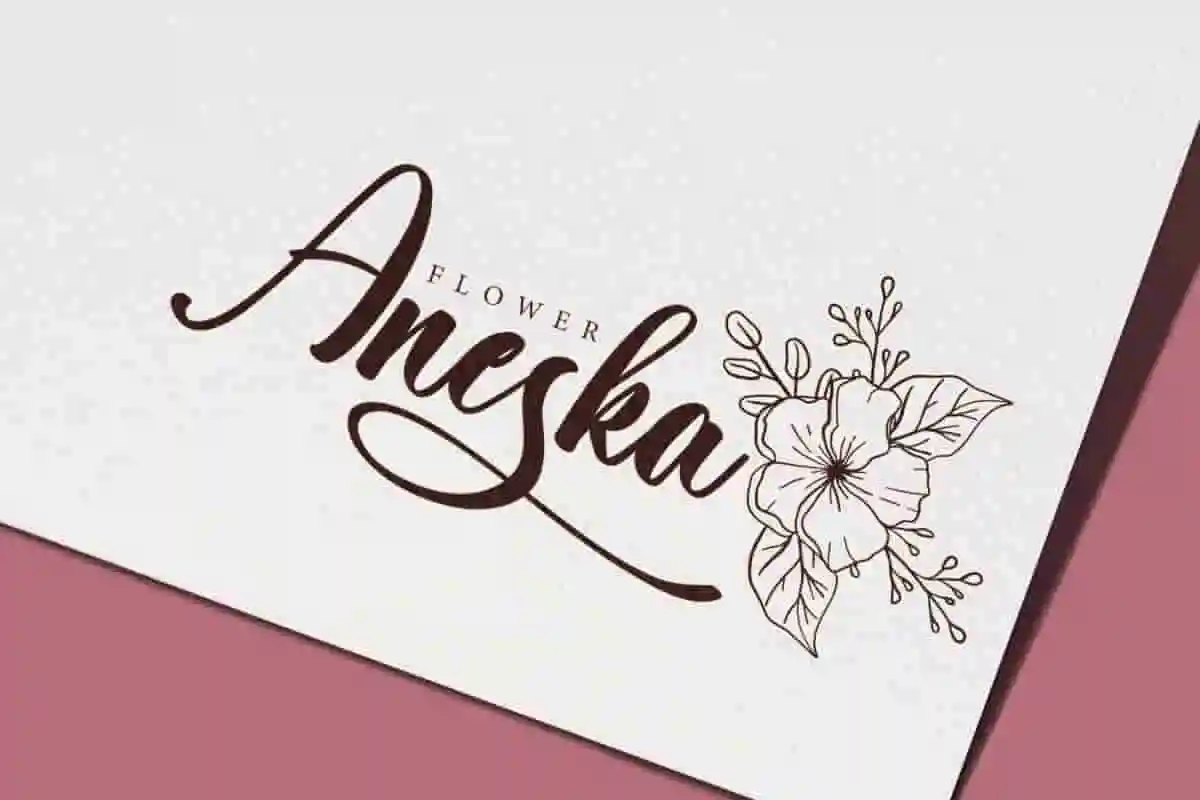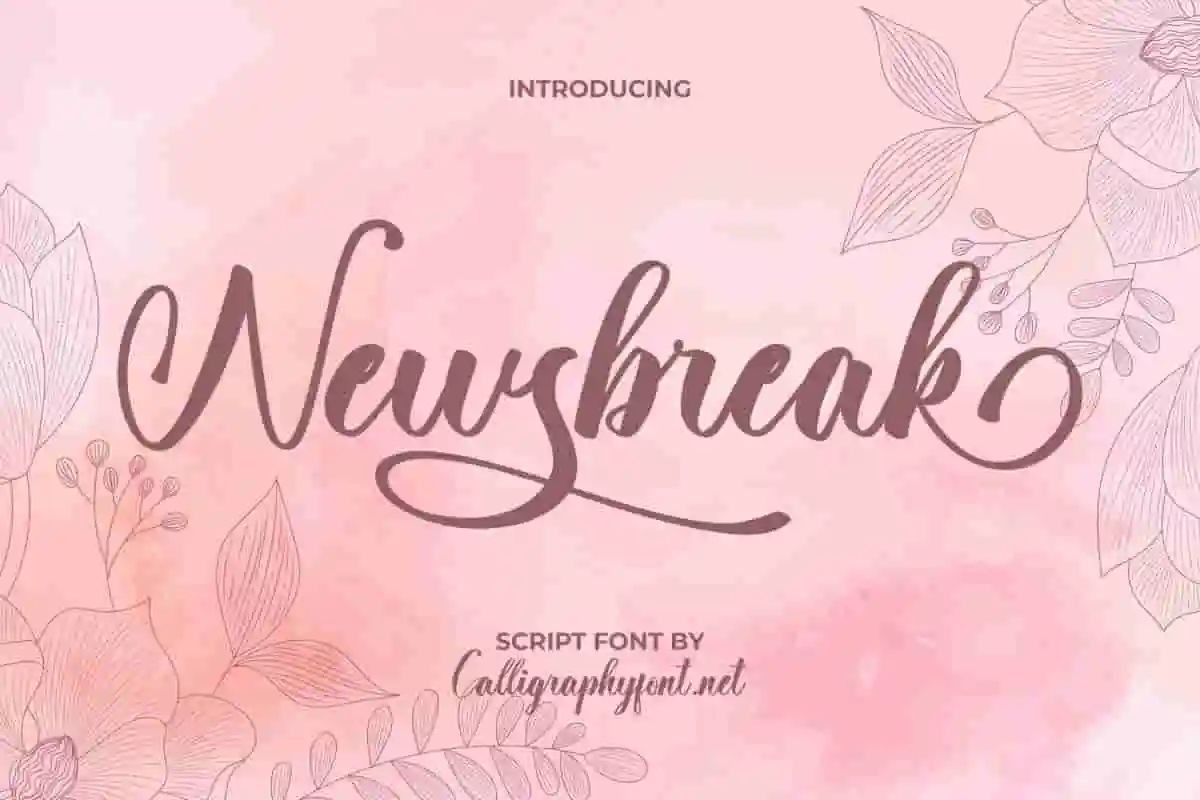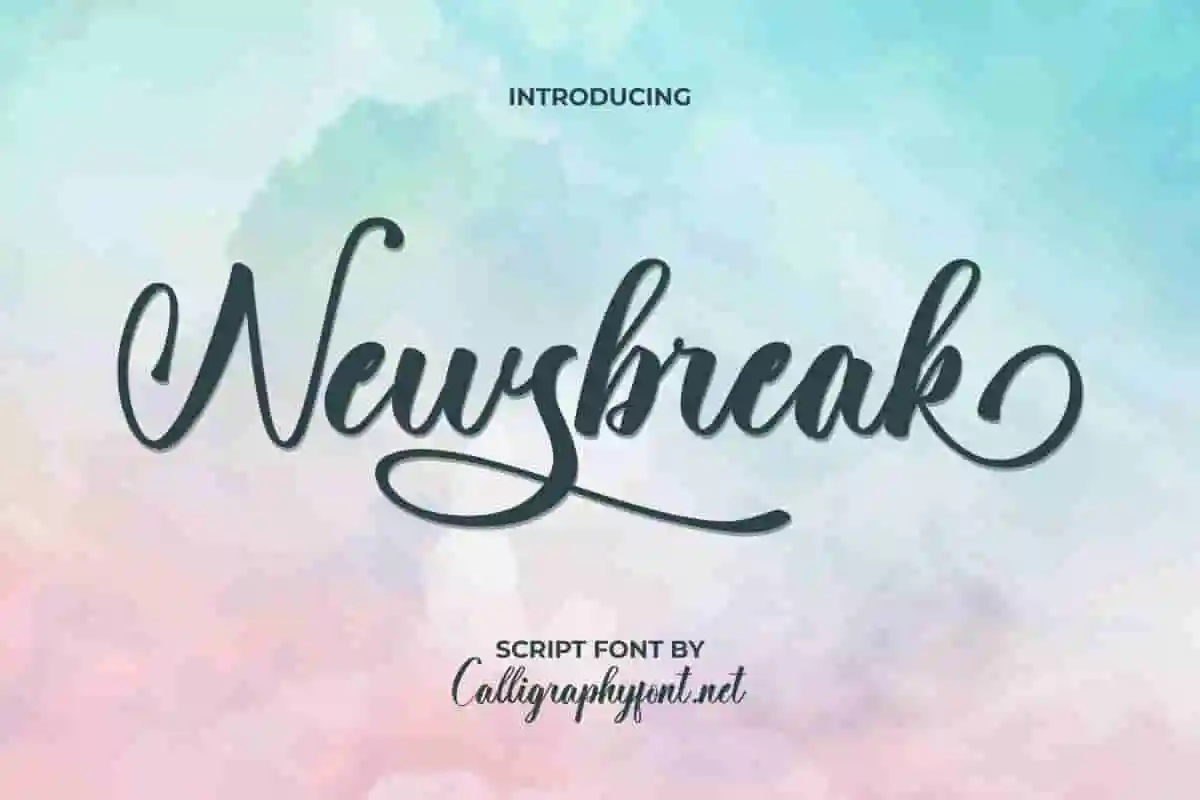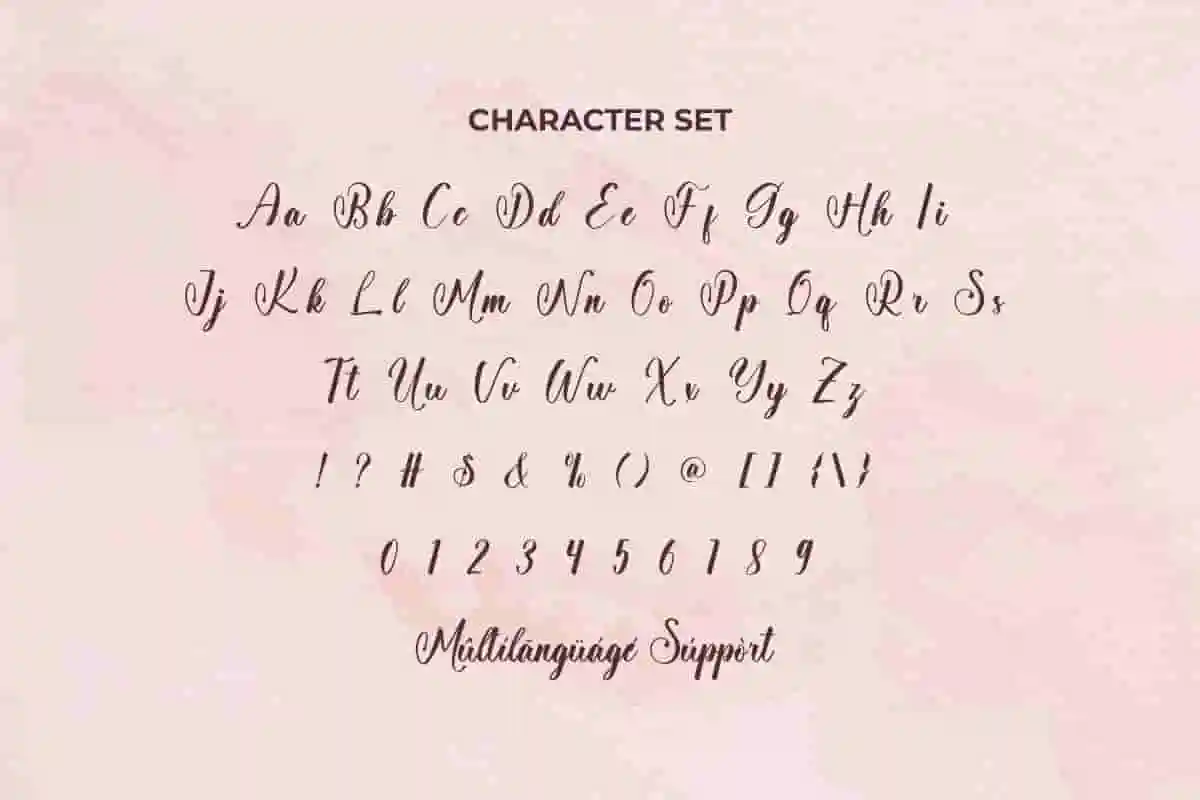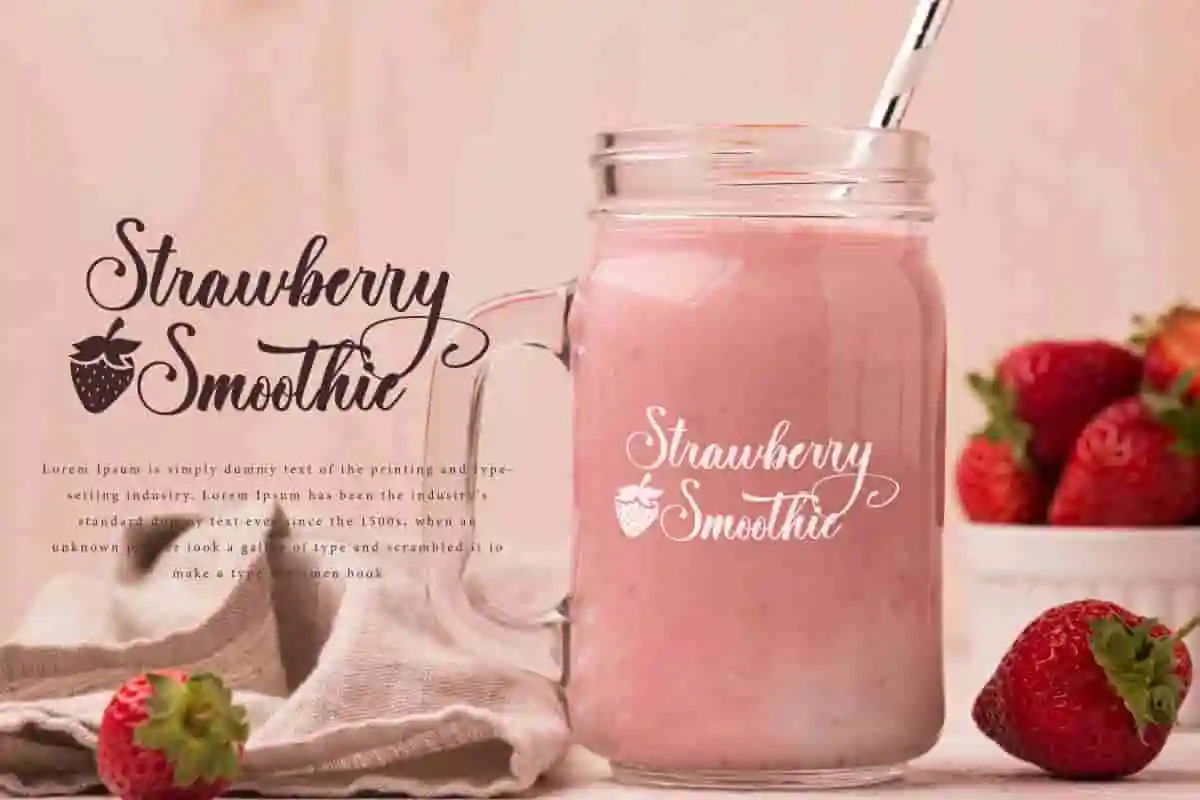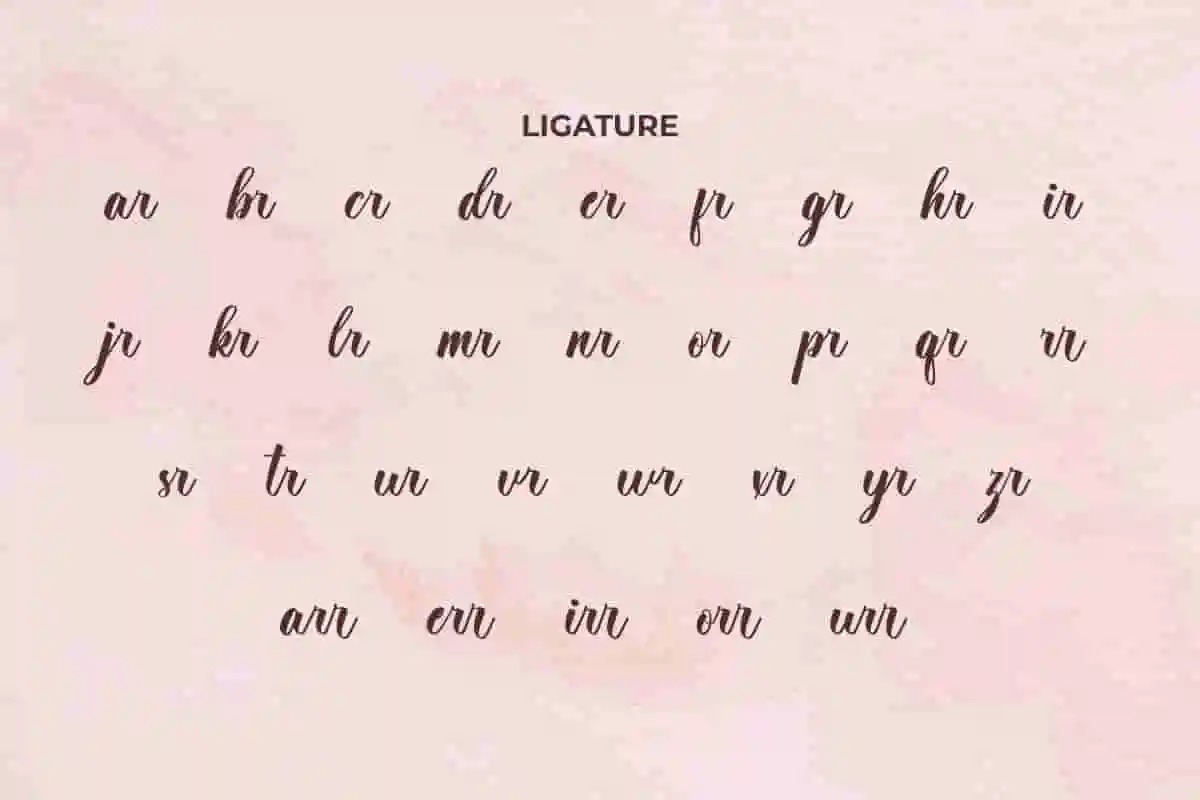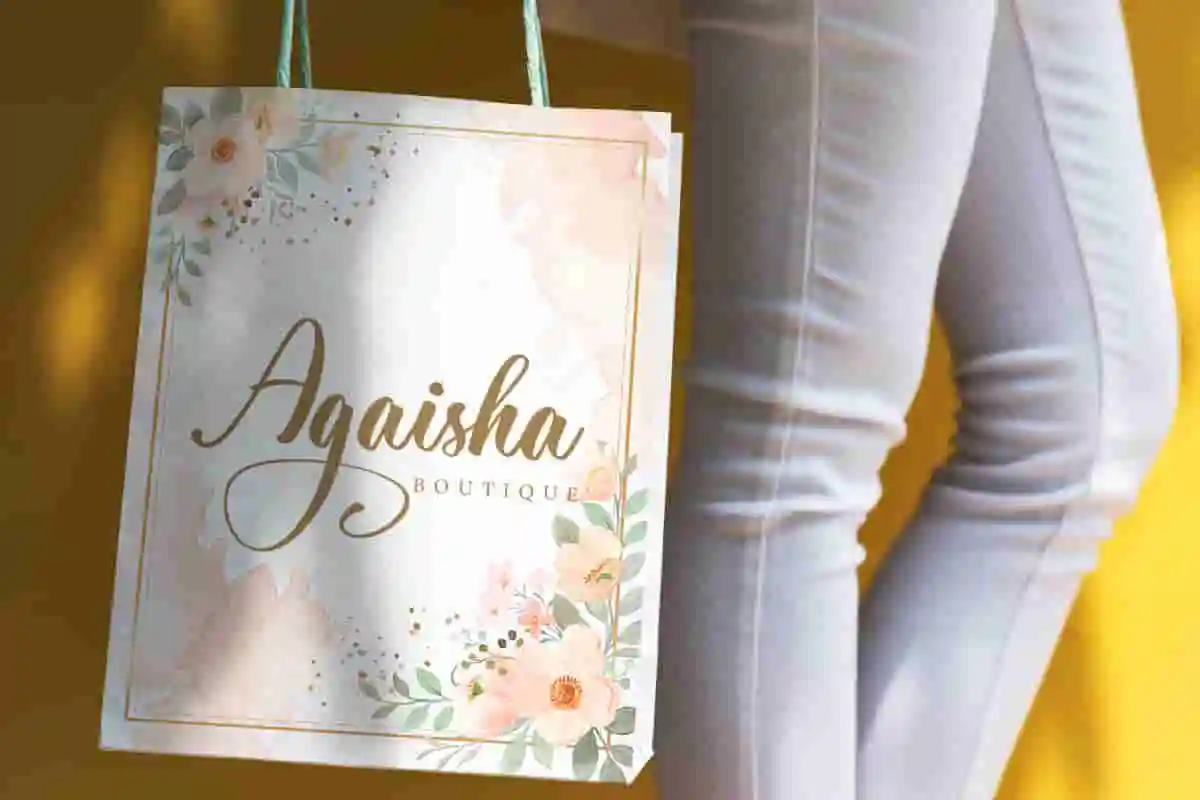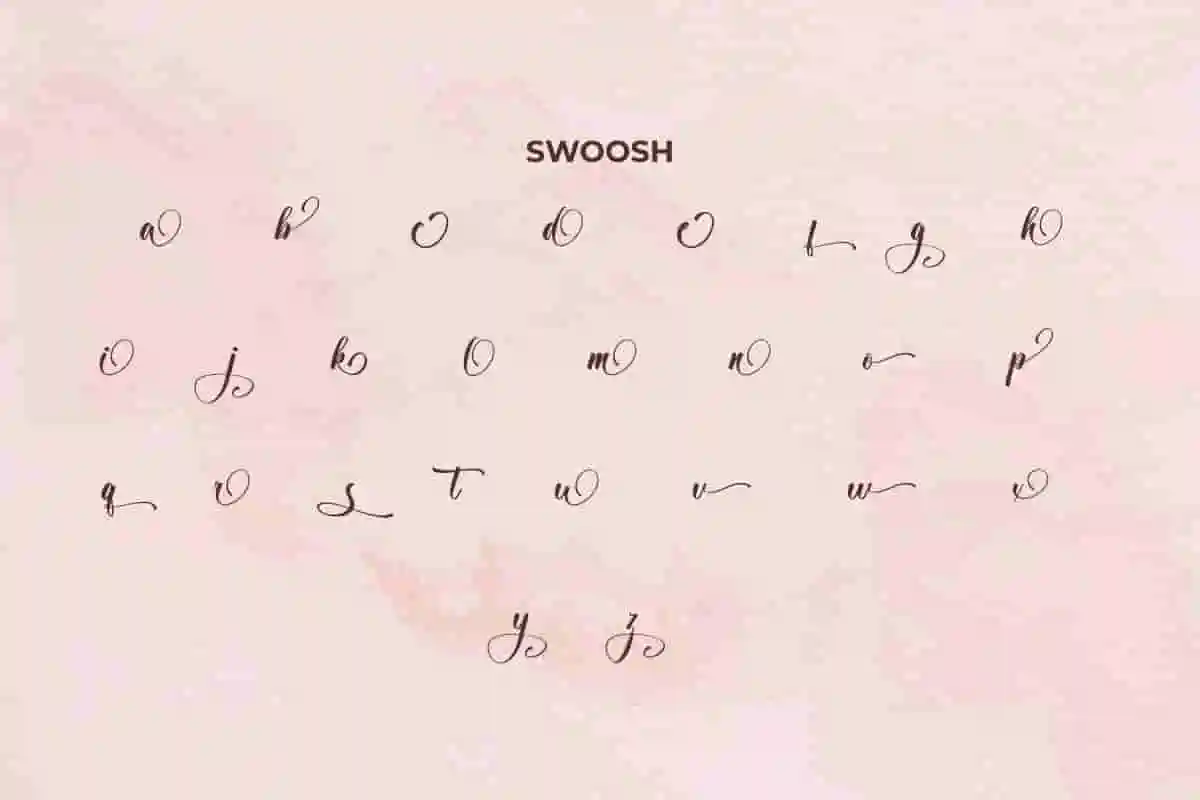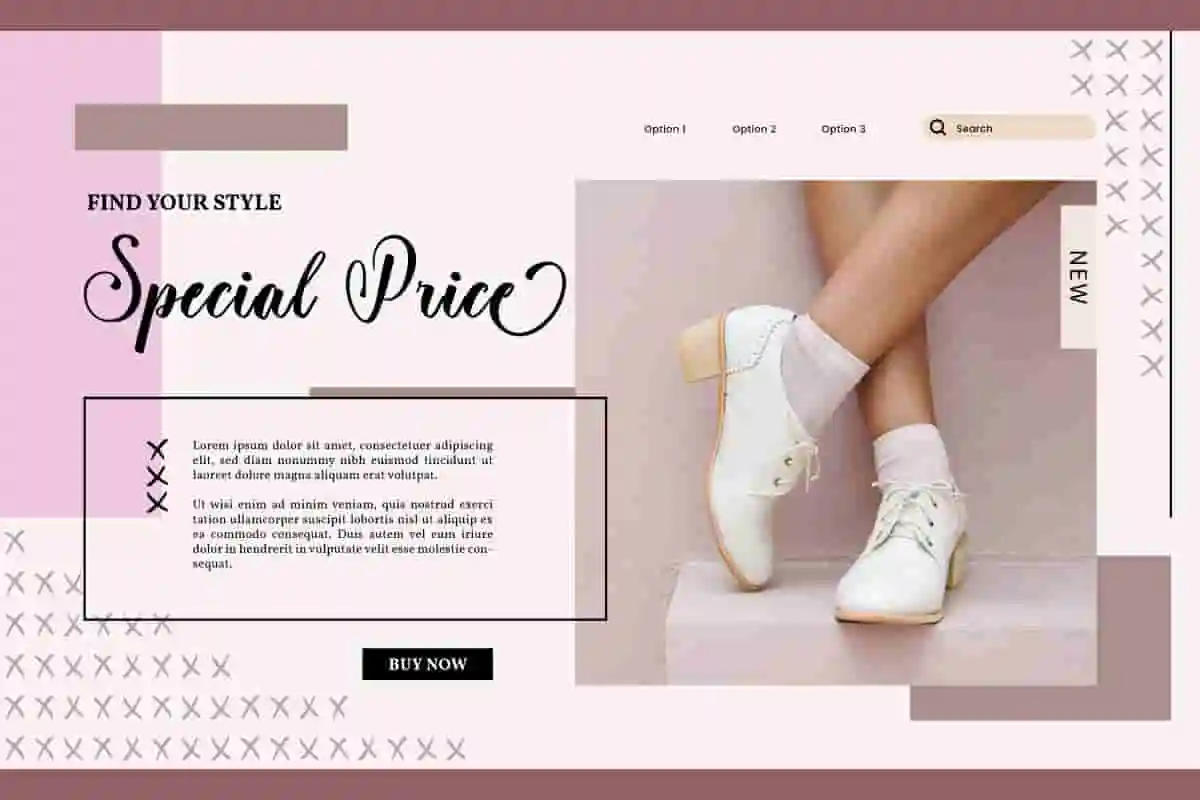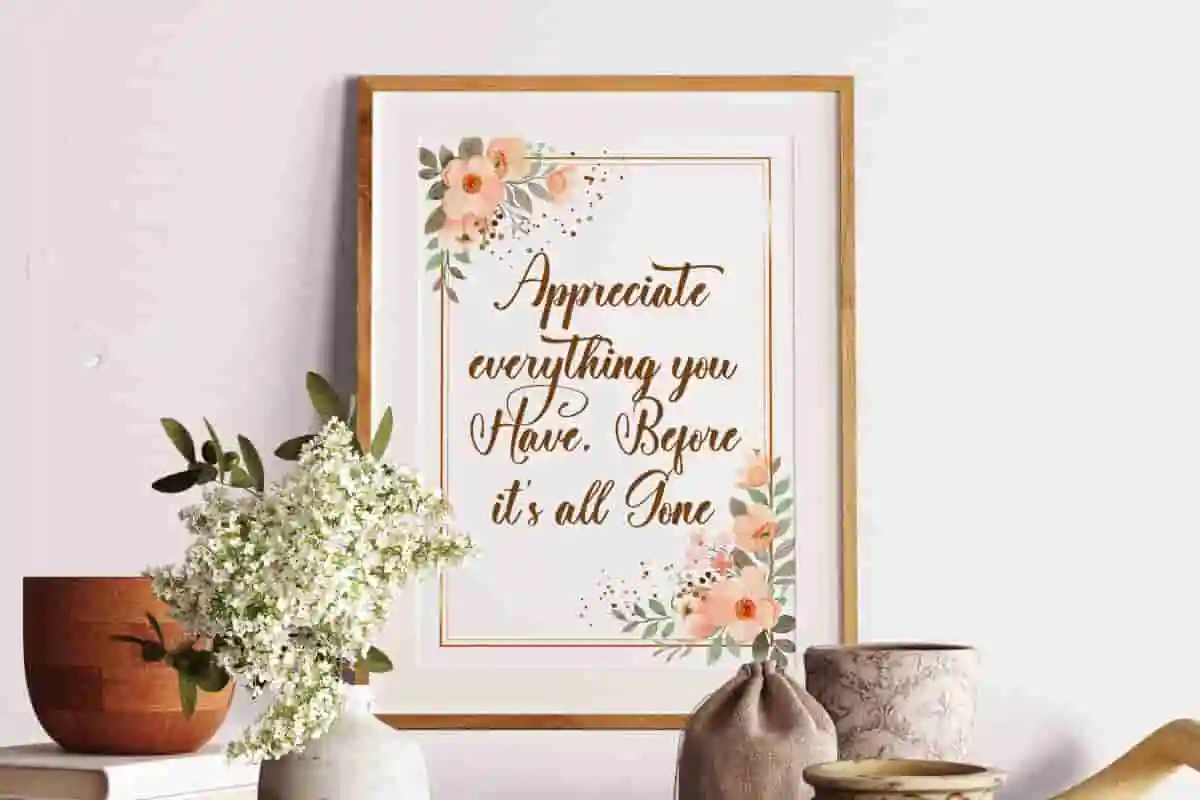
Newsbreak Elegant Font
Newsbreak Font is a beautiful calligraphic script font with a fancy style. This font will be perfect for cover, craft, florist, quote, salon, sticker, title, watermark, website, wedding, etc.
Newsbreak Font is a classy script font with a stunning calligraphic style created by CalligraphyFonts. This typography is based on the beauty of the flowers that represent every bend in the corner of the letters and suitable for any industry, such as author, boutique, event organizer, florist, furniture, handicrafts, healthy drink, printing, publishing, restaurant, shoes, skincare, spa salon, and much more.
Newsbreak Font is the right choice to be used as the main text or to be paired with other font types. This font will be perfect for any project, such brand logo, catalog, cover, invitation, label, letterhead, quote, screen print, signage, stationery, sticker, title, watermark, website, and other projects that require a touch of elegance.
Newsbreak Font comes with a full set of Uppercase and Lowercase Basic Characters, Number, a large range of Punctuation and Symbol. It also equipped with Ligature and Swoosh characters which will enhance the artistic value of the font. Ready to use both on Windows machine or Mac with simple installations. It’s tested to work well in the Adobe Apps (Illustrator, Adobe InDesign, Adobe Photoshop) CorelDraw, and others. It supports multilingual characters. PUA Encode Characters means you can access all the characters easily – Fully accessible without additional design software.